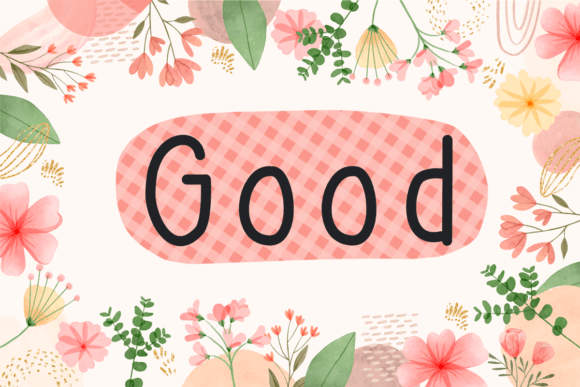
In a world where words dance on screens and paper, there exists a font of unparalleled charm, a font that captures the essence of creativity and visual delight: Good Font.
Picture this: a handwritten font, each letter crafted with the utmost care, exuding a sense of warmth and playfulness that will transform your designs into captivating masterpieces. Good Font is not just a collection of characters; it's an open invitation to let your imagination soar, to breathe life into your words and designs.
With its whimsical curves and playful strokes, Good Font possesses an undeniable charm that will make your projects stand out from the crowd. Whether you're a seasoned designer, a budding entrepreneur, or simply someone who appreciates the beauty of typography, Good Font is the perfect addition to your creative toolkit.
Harness the power of Good Font's versatility and let it elevate your work to new heights. Craft stunning book covers that capture the essence of your stories, design eye-catching logos that leave a lasting impression, or create social media posts that engage and captivate your audience. The possibilities are limitless.
Imagine your words, adorned with the elegance and charm of Good Font, captivating readers and igniting their imagination. Let Good Font be the bridge that connects your creativity with the hearts and minds of those who encounter your work.
Indulge in the endless variations that Good Font offers, and let your creativity run wild. Experiment with different colors, sizes, and placements, and discover the infinite ways in which Good Font can transform your designs.
Good Font is more than just a font; it's an experience, a journey into the realm of visual enchantment. Its friendly feel and flexibility make it the perfect companion for any creative endeavor, adding a touch of magic to everything you create.
So, embrace the magic of Good Font today, and embark on a creative adventure that will leave you spellbound. Let your words and designs shine with newfound brilliance, and experience the joy and satisfaction of creating something truly remarkable.